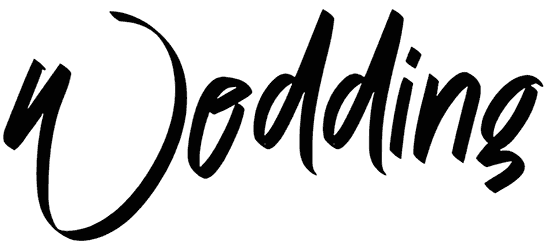
Wedding Font
This is Wedding, the handwritten font that will make any design look more elegant and romantic. A beautiful wedding invitation, love letter, or any creative endeavor would benefit greatly from the use of this wedding font.
Wedding is an unreadable font that will still add finesse to your design with its graceful curves and subtle touches. Grab it from RB’s extensive font collection today to sprinkle some passion into your next undertaking.